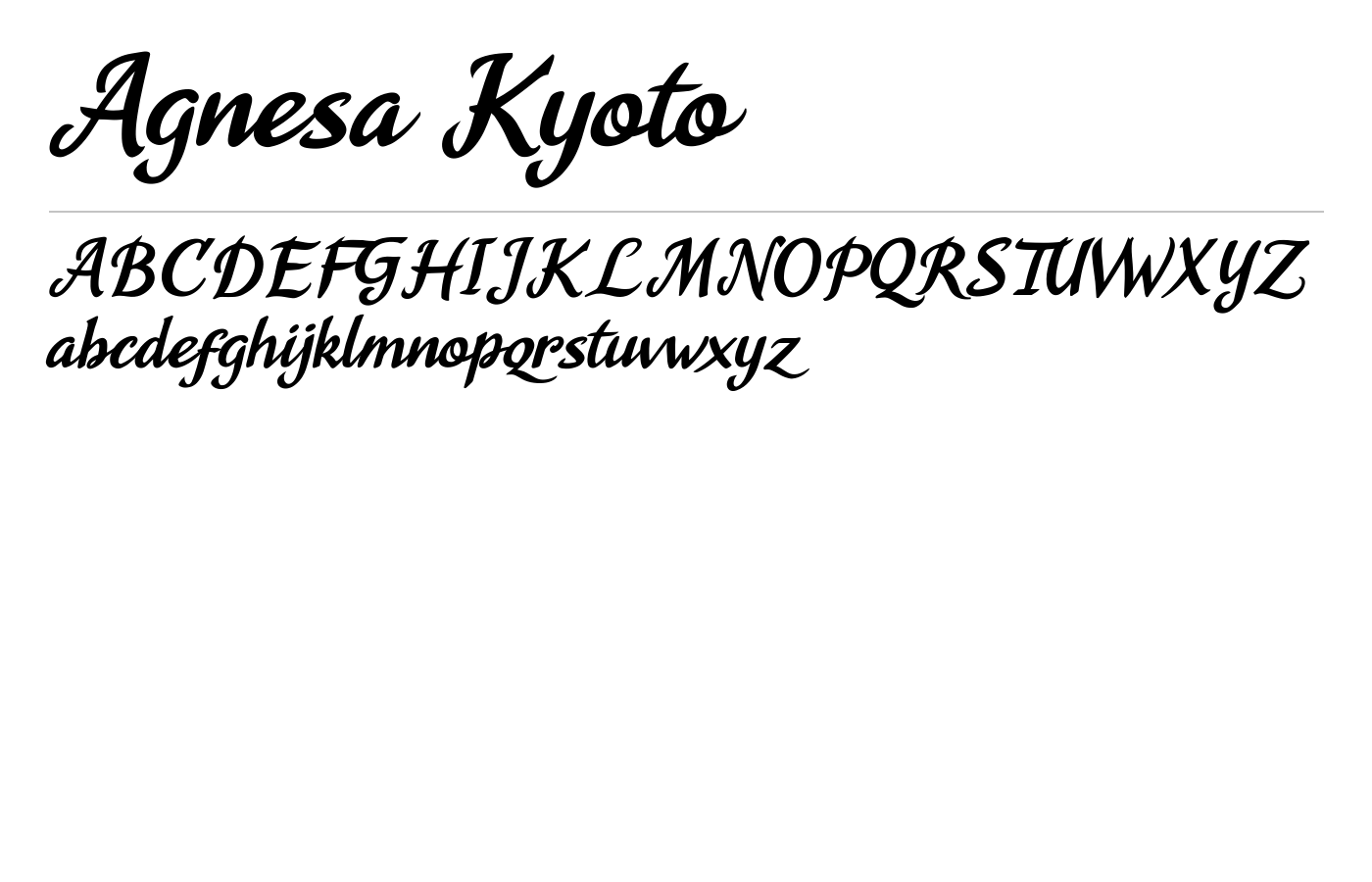
Agnesa Kyoto is an elegant script font with a smooth, calligraphic flow that balances classic charm and modern readability. Its moderate weight and slightly condensed letterforms make it perfect for sophisticated branding, invitations, and headlines where a refined yet approachable style is desired. This font adds a graceful, personal touch to designs, ideal for fashion, luxury, and artistic projects.
Agnesa Kyoto Font
About Agnesa Kyoto Font
| Font family | Agnesa Kyoto Font |
| Designer | Cundrawan (cove703) |